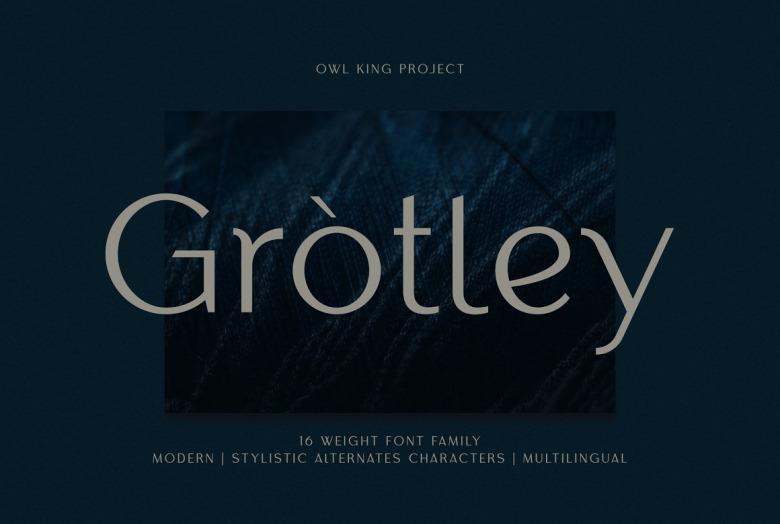
Grotley Font
Grotley Sans Serif Font, inspired by the trend of the fashion world and the theme of an exclusive vacation spot. a sleek design Grotley is a sans serif font that can be used for logos, long text, and it’s great for short and big titles. Grotley also has alternative upper and lower case letters that will add style to your design.
Grotley Sans Serif Font